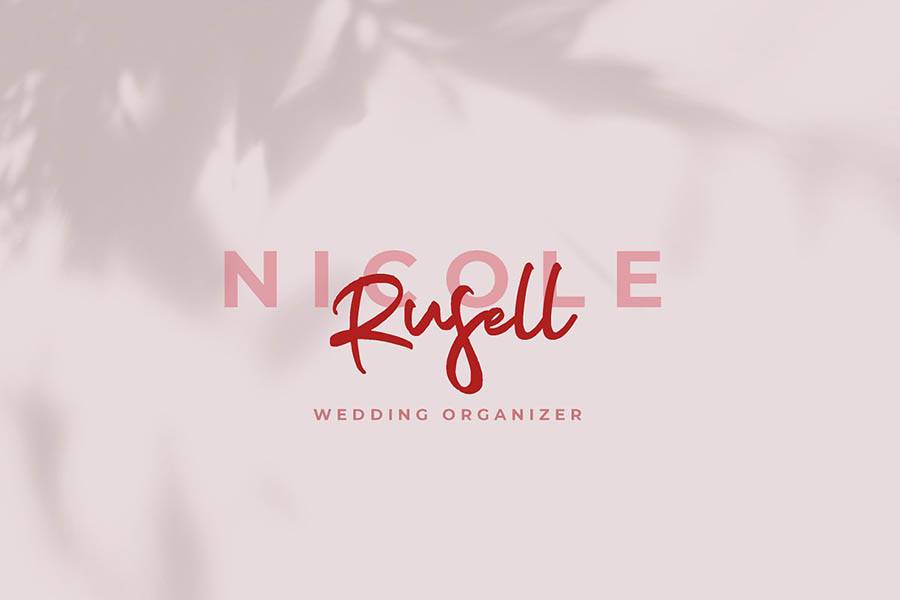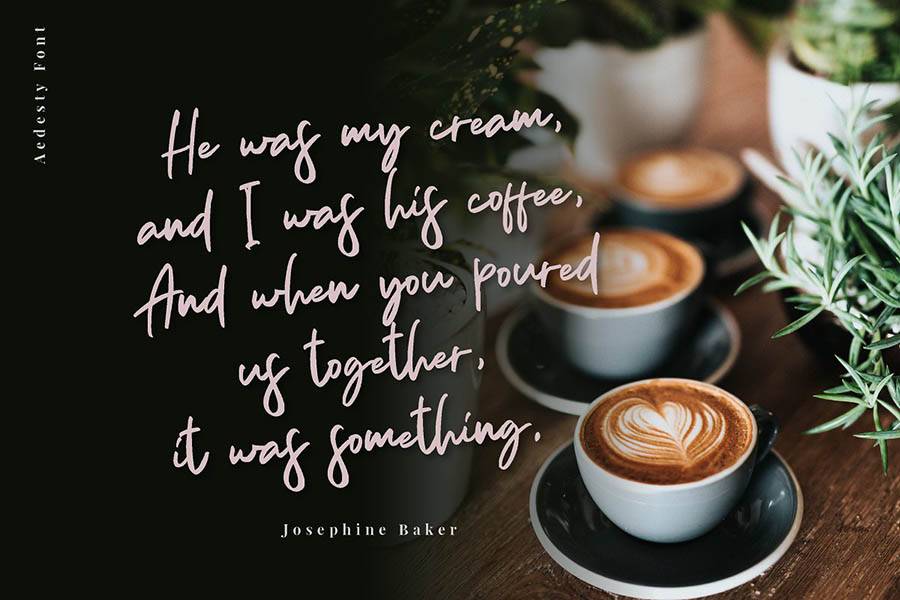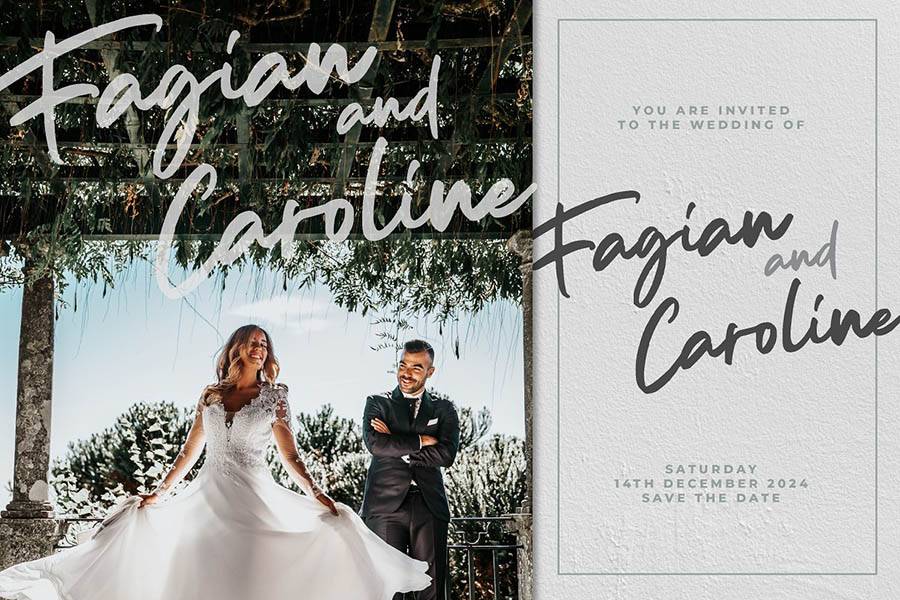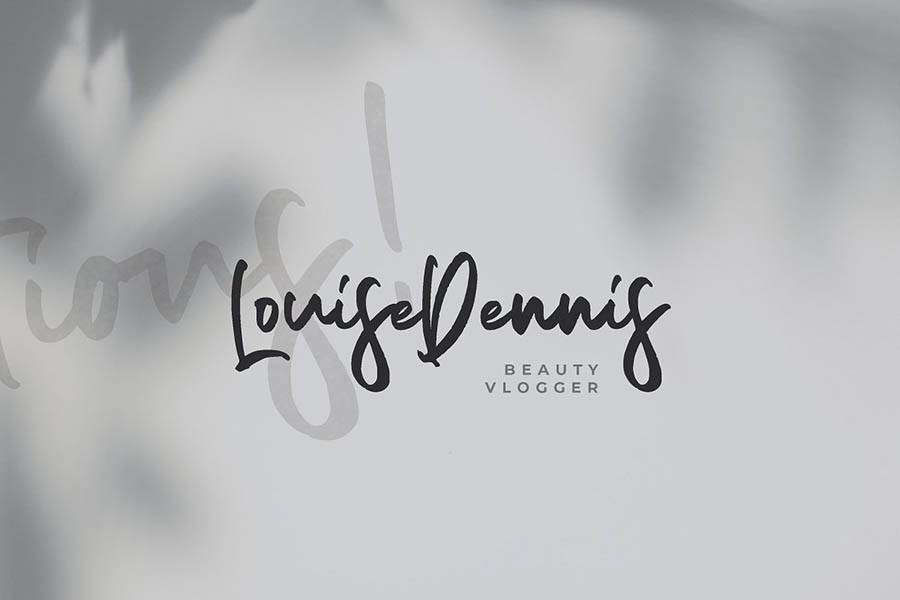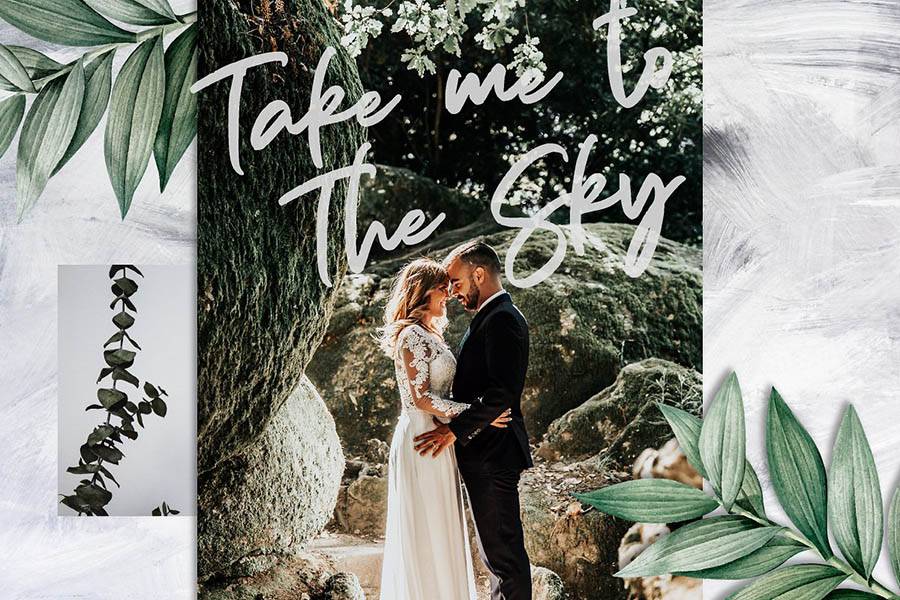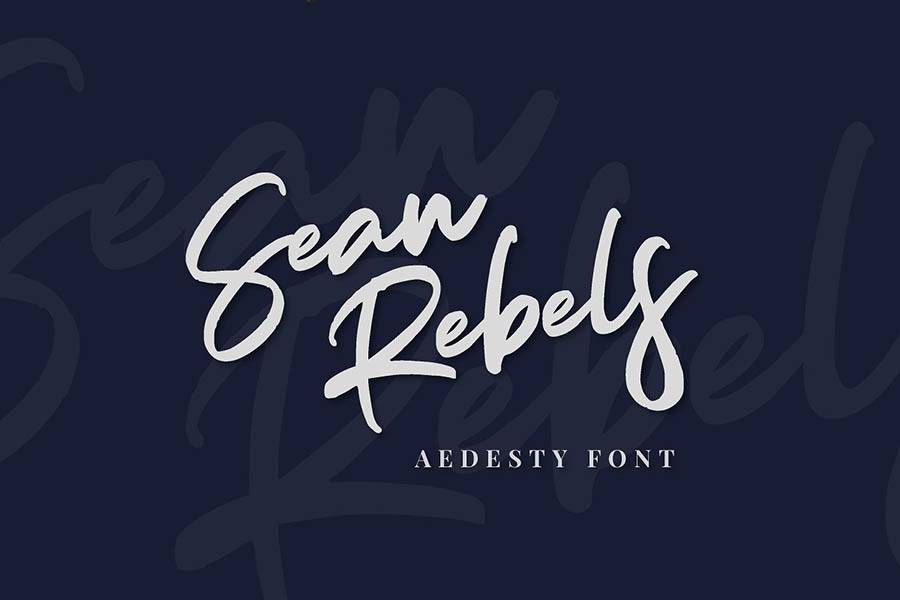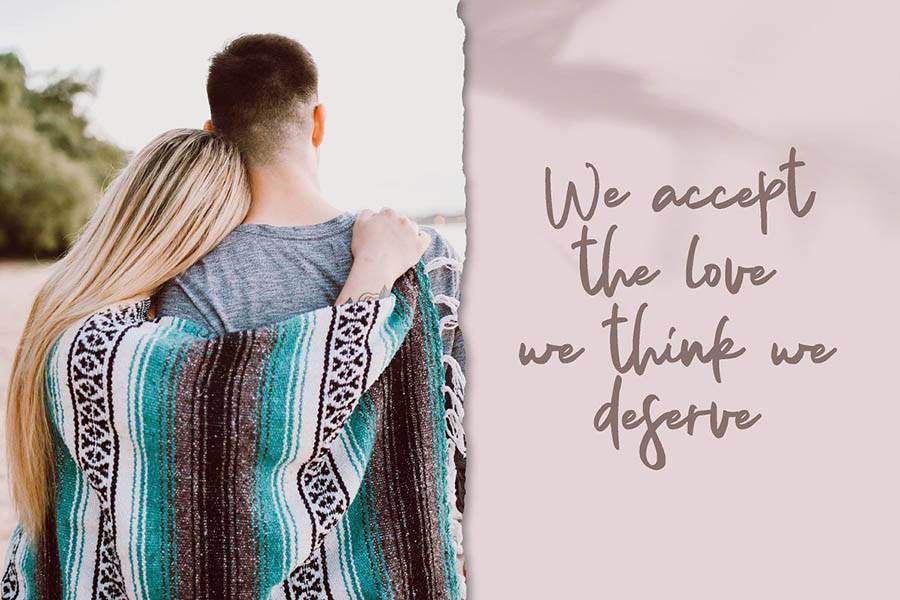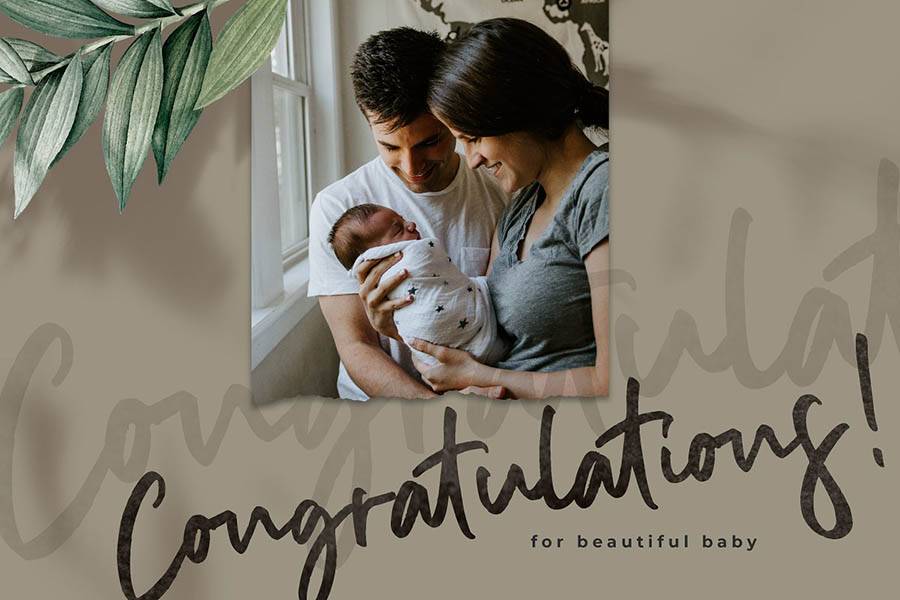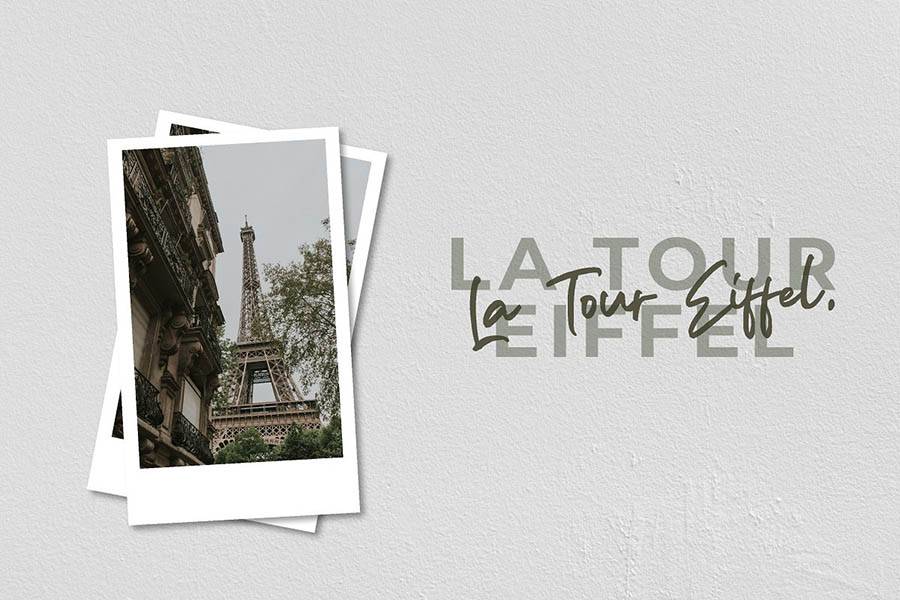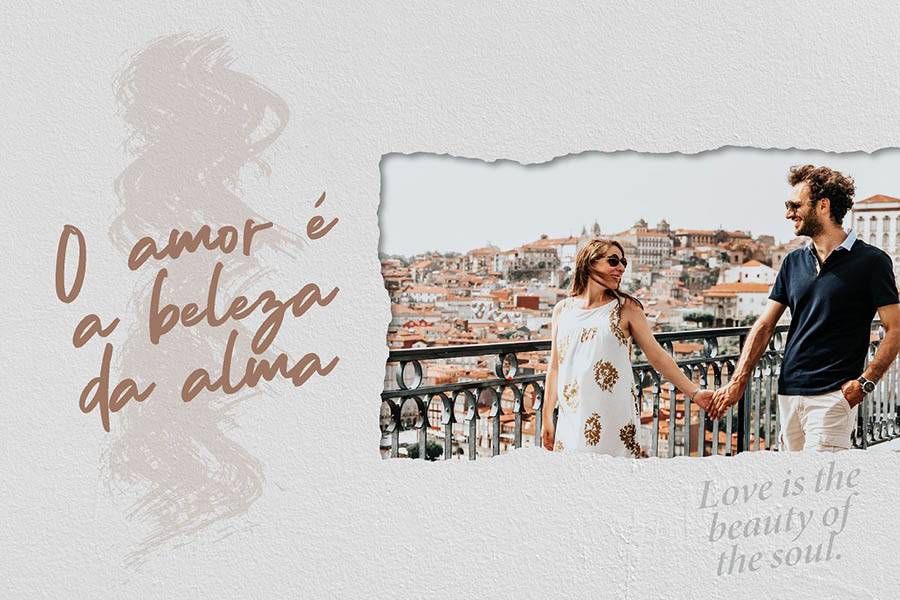
Aedesty Script Demo is a lively and expressive handwritten script font that features a casual yet stylish flow. Its medium weight and uneven stroke widths give it a natural, personal touch, making it ideal for creative designs, invitations, branding, and social media where a warm, approachable feel is desired. This font works best in headlines or short text for an informal, modern look that stands out.
Aedesty Script Demo Font
About Aedesty Script Demo Font